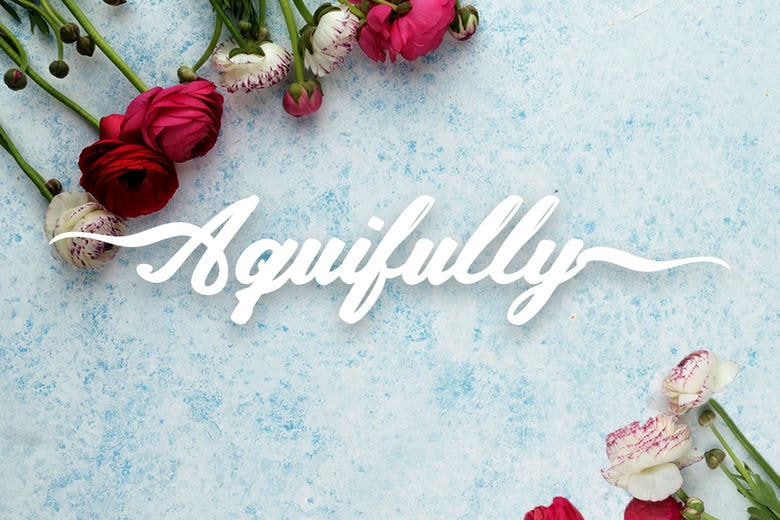
Aquifully Font
Aquifully typeface has sweeping and romantic swashes, with the feel of hand-lettering and mimics high-end calligraphy fonts. It is the ultimate choice for projects that call for a bit of personal grace and sophistication like wedding stationery, luxury branding or delicate editorial layouts.
With the Aquifully font, you can turn simple text and transform it into a centerpiece of art. This Aquifully typeface works exceptionally well with soft floral backgrounds and pastel color palettes to bring an atmosphere of timeless beauty. Use it for invitation headers or boutique logos, to communicate a sense of bespoke craftsmanship and high fashion appeal.
Aquifully Calligraphy Script Font